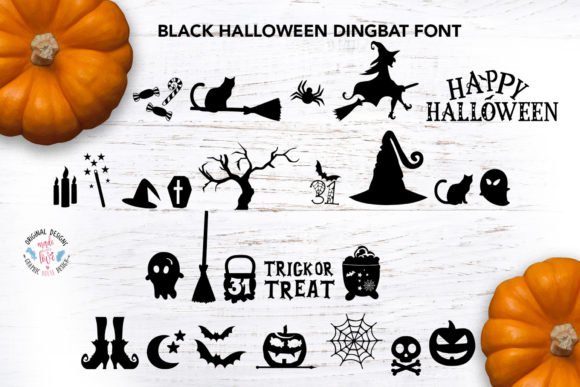
Get Ready for a Spooky Season with the Black Halloween Font
As the crisp autumn air sets in, designers everywhere start brainstorming ideas for their October projects. There’s something magical about creating a spooky atmosphere that captures the essence of the season. I still remember the thrill of designing my first Halloween-themed project, pouring over fonts and graphics to find the perfect combination. And then, I stumbled upon the Black Halloween Font – a cute and spooky dingbats font that instantly elevated my designs.
This adorable font is a must-have for any designer looking to add a touch of whimsy to their October projects. By incorporating the Black Halloween Font into your designs, you’ll notice how easily they stand out from the crowd. Whether you’re creating invitations, social media graphics, or decorations, this font is sure to cast a spell on your audience. Its value lies in its versatility and ability to add a playful, spooky touch to any design.
Black Halloween Font Key Features
- Font Family: Black Halloween, a spooky and mysterious font designed for Halloween-themed designs and decorations.
- Unique Characteristics: The font features intricate and ornate details, including spooky symbols, bats, spiders, and other Halloween-themed elements that add to its eerie charm.
Designer Review: Black Halloween Font
When I first laid eyes on the Black Halloween Font, I was immediately drawn to its edgy and mysterious vibe. ✨ The font’s bold and gothic aesthetic makes it perfect for designs that want to evoke a sense of darkness and foreboding. The font’s high contrast between thick and thin lines adds to its dramatic effect.
However, I do have a few reservations about this font. ⚠️ Firstly, the font may be a bit too over-the-top for some designs, and its boldness might overpower other elements. Additionally, the font’s limited character set and lack of italics might be a drawback for designers who need to create more nuanced and sophisticated designs.
Here are some specific strengths and weaknesses of the font:
- ✨ Works well for horror-themed designs, Halloween-themed designs, and other dark or spooky projects
- ✨ Great for creating a sense of drama and tension
- ⚠️ May be too bold for some designs
- ⚠️ Limited character set and lack of italics
Overall, the Black Halloween Font is a great choice for designers who want to create edgy and attention-grabbing designs. While it may not be suitable for all projects, it’s a great addition to any designer’s toolkit.
For best results, use the font in a bold and playful design, such as a Halloween invitation or a spooky banner.
Use the font in a creative way, such as a spooky logo or a haunted house sign.
Use the font in a fun and creative way, such as a Halloween-themed presentation or a spooky newsletter.
Use the “Black Halloween Font” in bold and playful designs to create a spooky atmosphere.
Common use cases include Halloween invitations, spooky banners, haunted house signs, and Halloween-themed presentations.